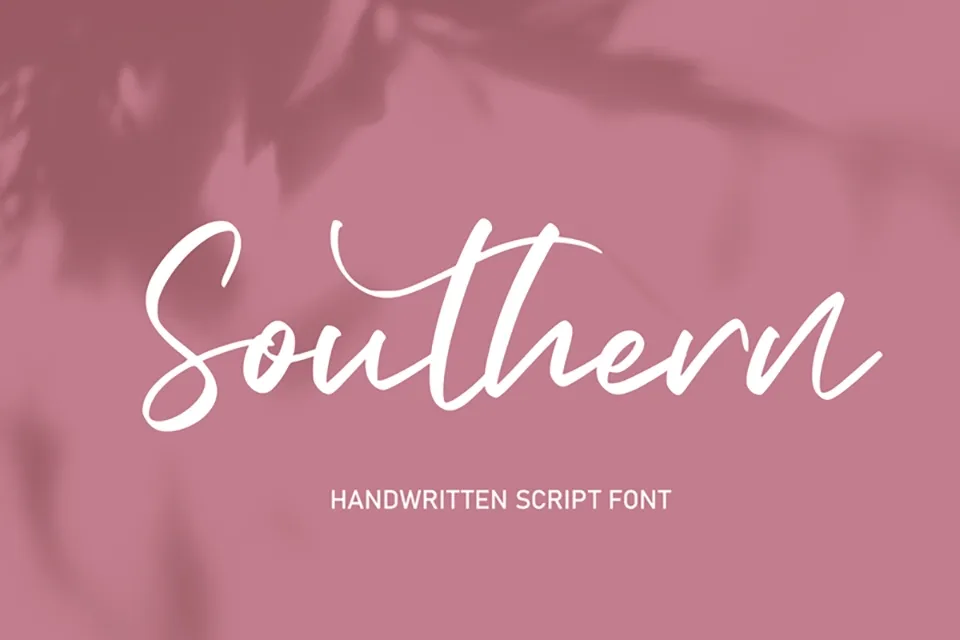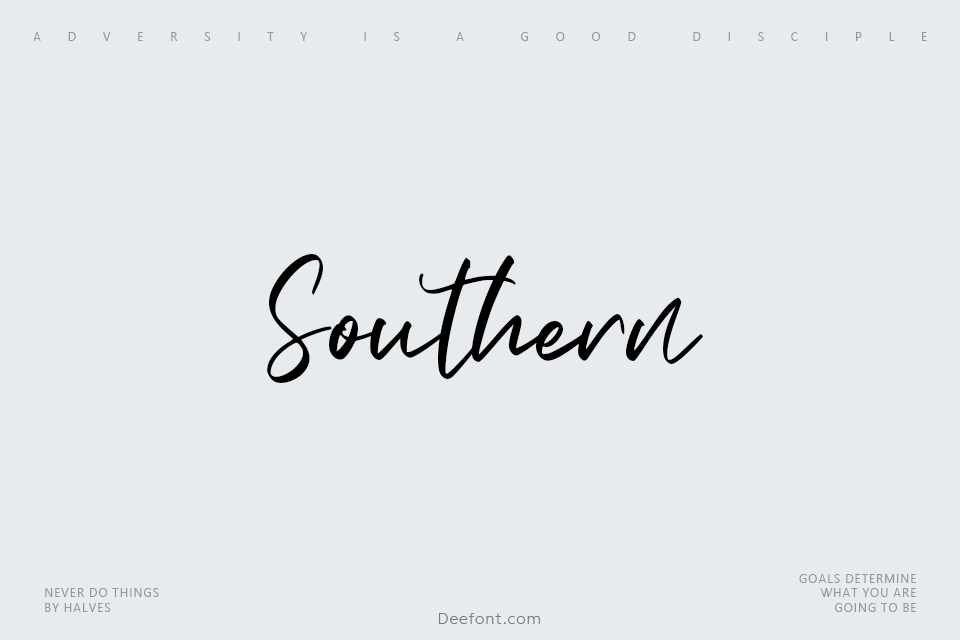
Southern Font
Southern feels equally charming and elegant. It looks stunning on wedding invitations, thank you cards, quotes, greeting cards, logos, business cards and every other design which needs a handwritten touch.